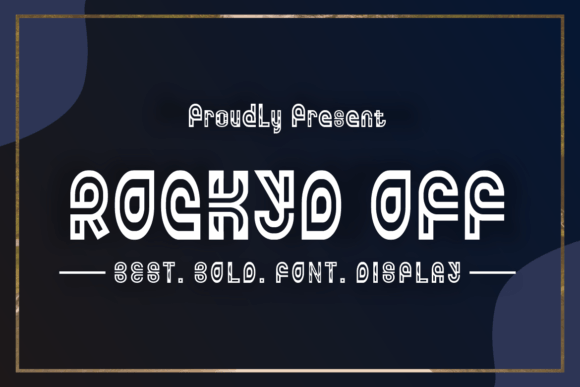
**Introducing Rockyd Off: The Font That Will Rock Your Next Job Application!**
When it comes to making a stellar first impression, every detail counts. And with Rockyd Off, you'll have the perfect font to make your job cover letter stand out from the crowd.
Rockyd Off is a captivating, modern font that combines sharp angles with playful curves. Its unique shape is guaranteed to grab attention and leave a lasting impression.
**Here's why Rockyd Off is the best font for your job cover letter:**
* **It's confident:** The bold, angular characters exude confidence and determination, qualities that any potential employer will appreciate.
* **It's creative:** The playful curves add a touch of creativity and personality, showing that you're not afraid to think outside the box.
* **It's professional:** Despite its unique appearance, Rockyd Off maintains a level of professionalism that is essential for any job application.